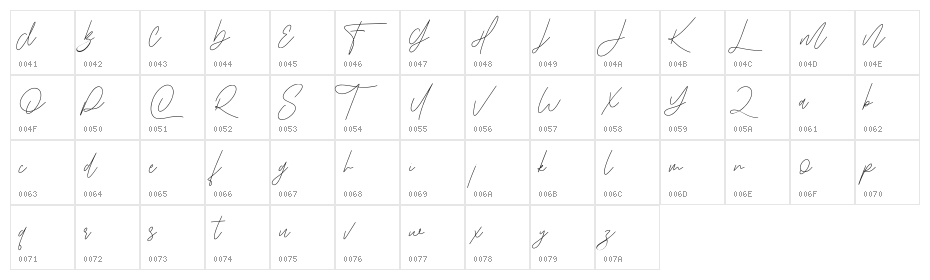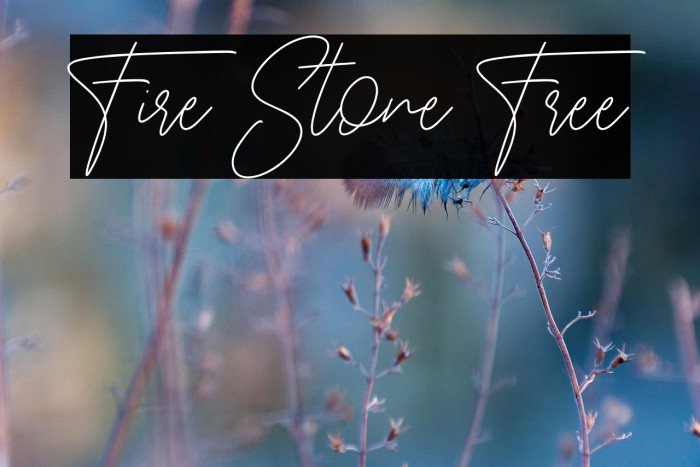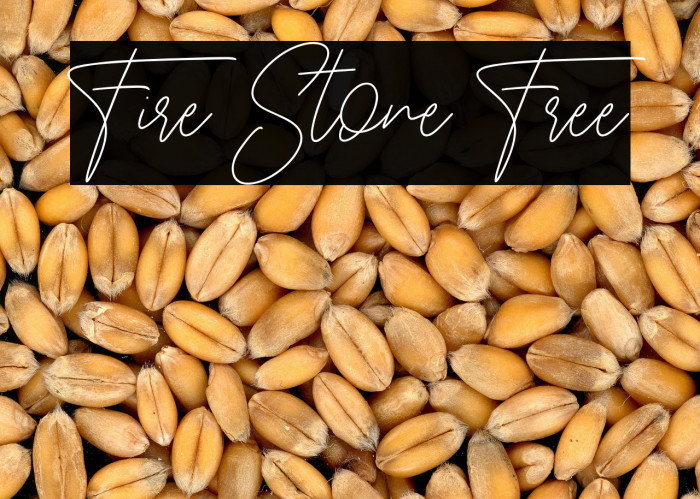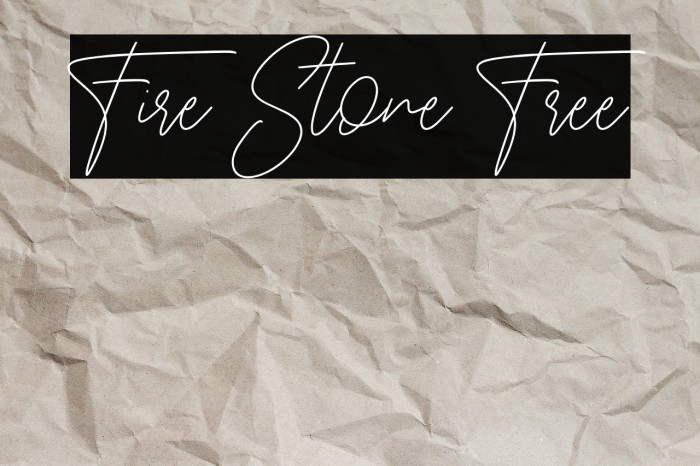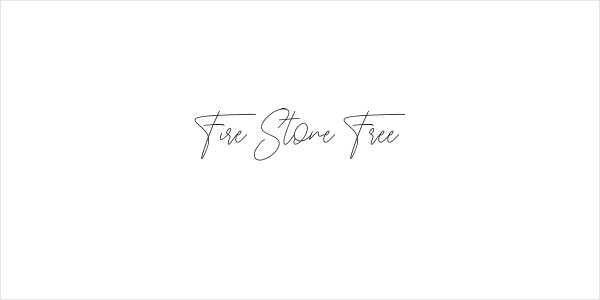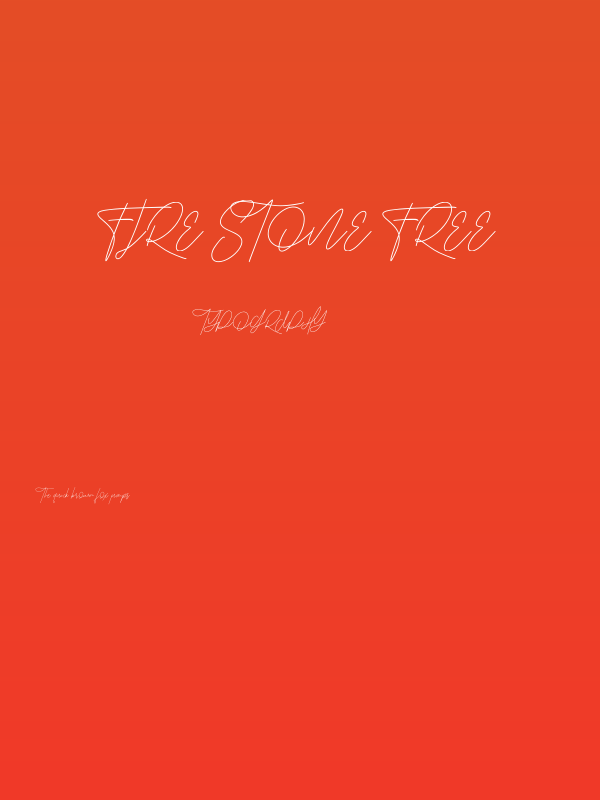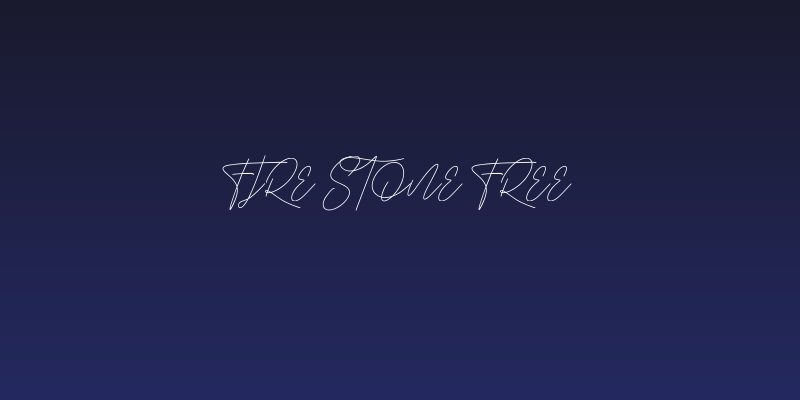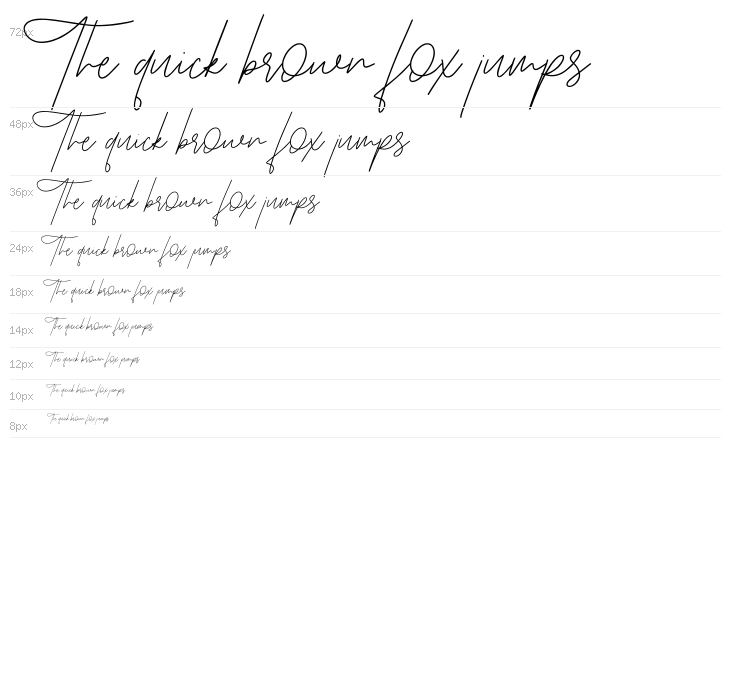
Fire Stone Free Font
Fire Stone Free Description
This font exudes a dynamic and expressive style, characterized by its fluid, cursive script. The letters are interconnected with sweeping, elegant strokes that convey a sense of movement and grace. The overall appearance is both sophisticated and artistic, making it ideal for creative projects that require a personal touch. The uppercase letters are bold and prominent, while the lowercase letters maintain a consistent flow, enhancing readability. This font's unique charm lies in its ability to blend traditional script elements with a modern flair, making it versatile for various design needs.
| Use Case | Logos, Invitations, Artistic projects |
| Proposed Projects | Ideal for wedding invitations, branding, logos, and artistic projects that require a personal and elegant touch. |